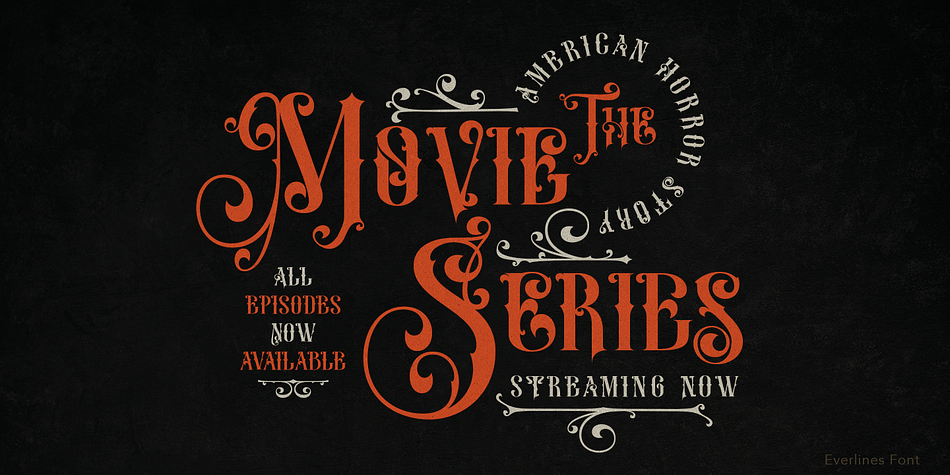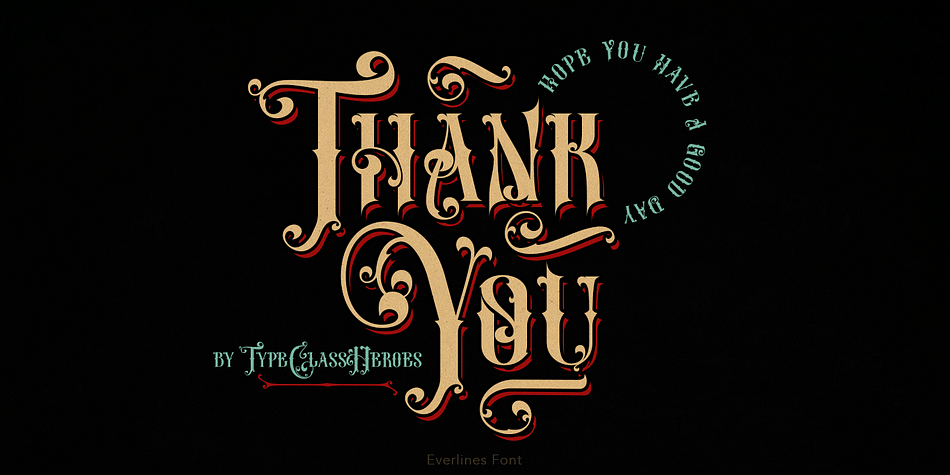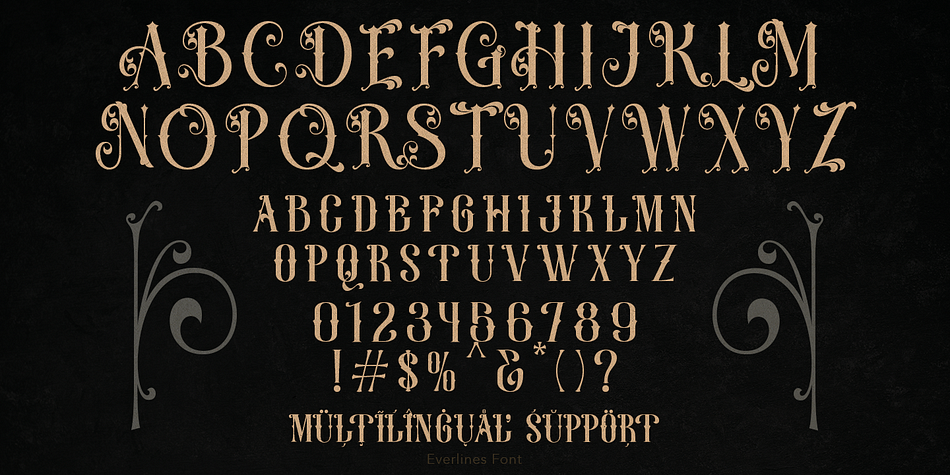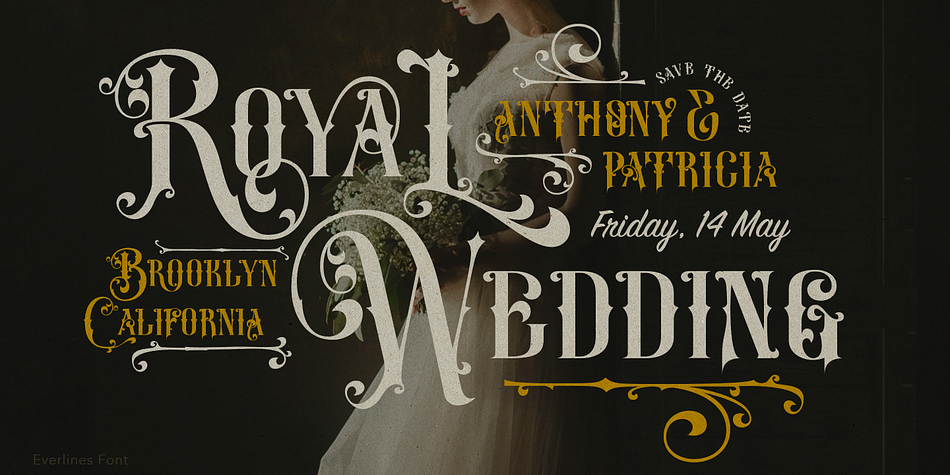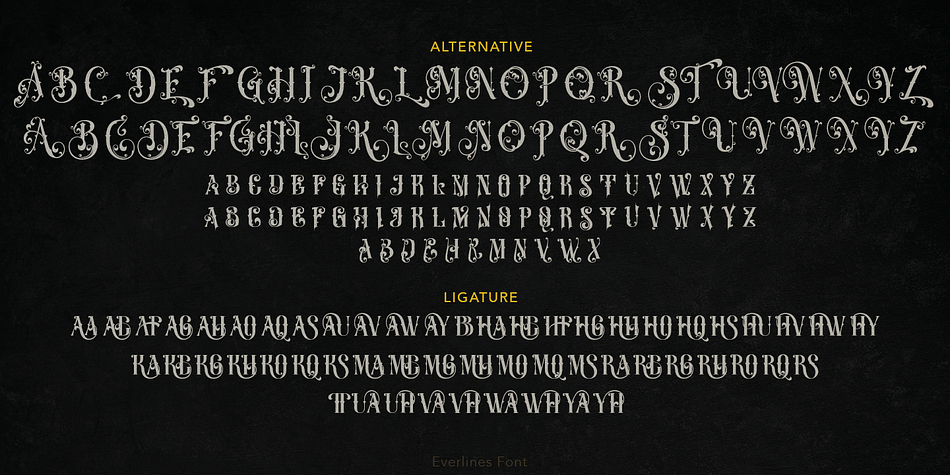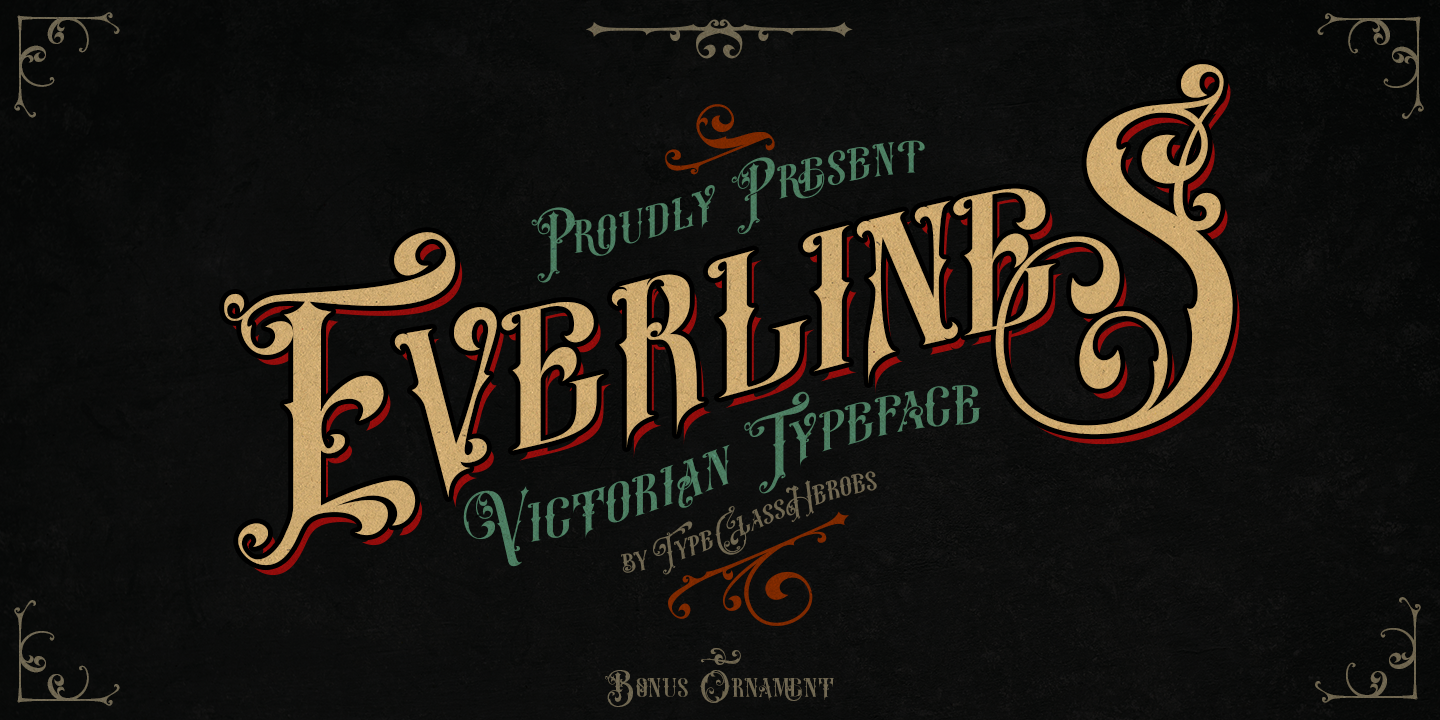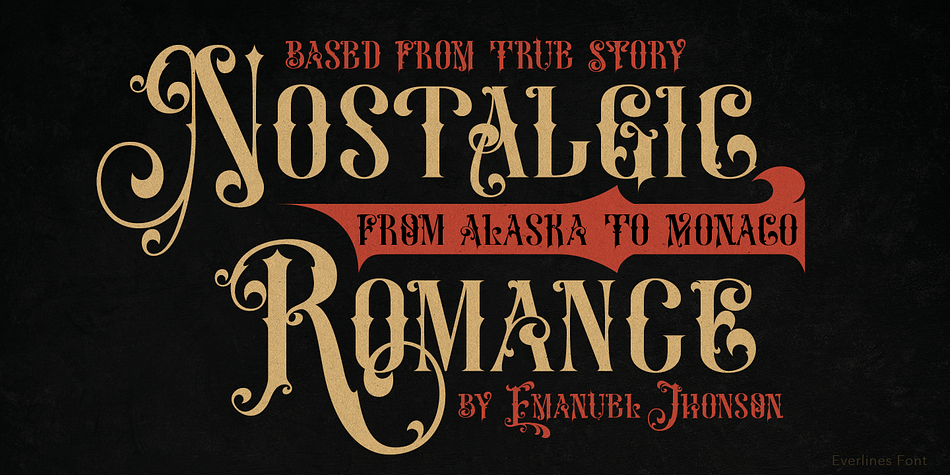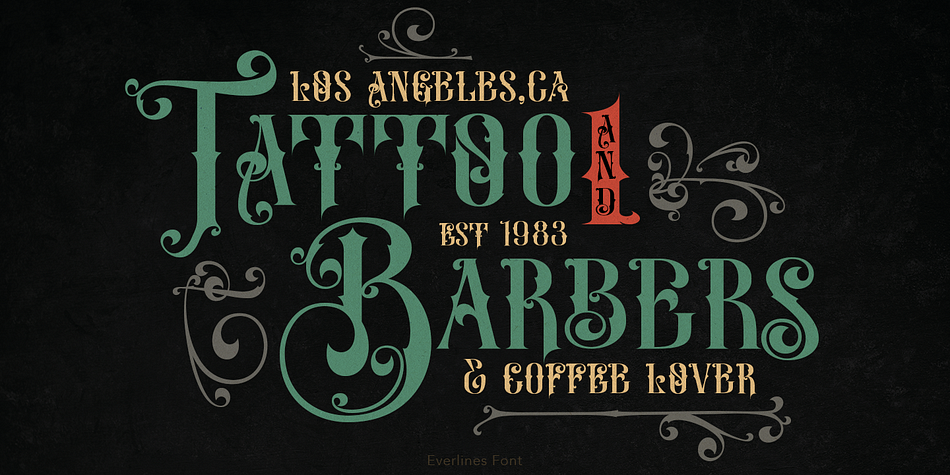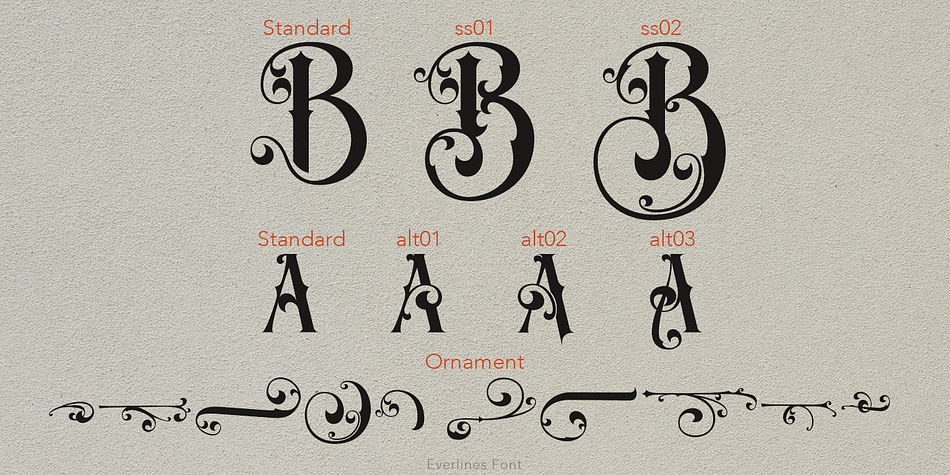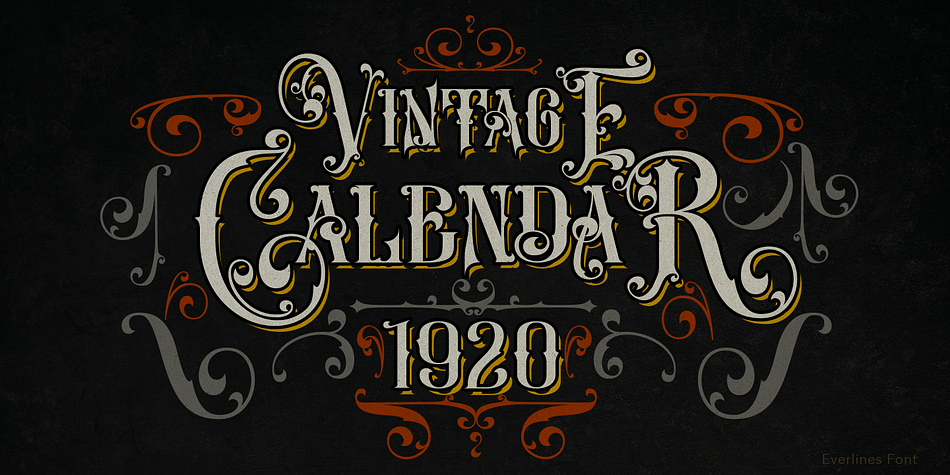
Everlines
Everlines is an art nouveau font family. This typeface has two styles and was published by TypeClassHeroes.
We proudly present “Everlines” is an all-caps font with an elegant touch with a classic feel inspired by the typography from the 19th century, old fancy lettering, vintage illustration, and victorian calligraphy.
This font is very perfect for many display purposes in your product design if you want to a vintage and classic style, elegant and luxury. Such as book covers, product labels, logos badges, drink bottles, tattoo shop, coffee shops, fashion products, wedding invitation, etc.
- Alternative
- Ligature